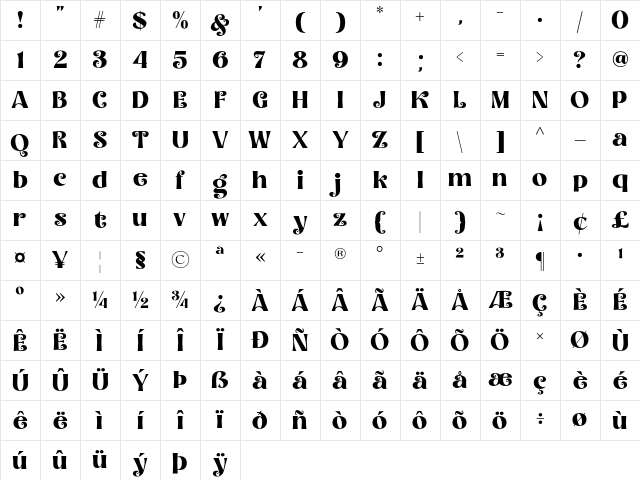
Bonello Regular
Designer: Kadek Mahardika
Design Context for Bonello
Bonello is a composed and adaptable typeface that performs quietly and consistently across a wide range of design contexts.